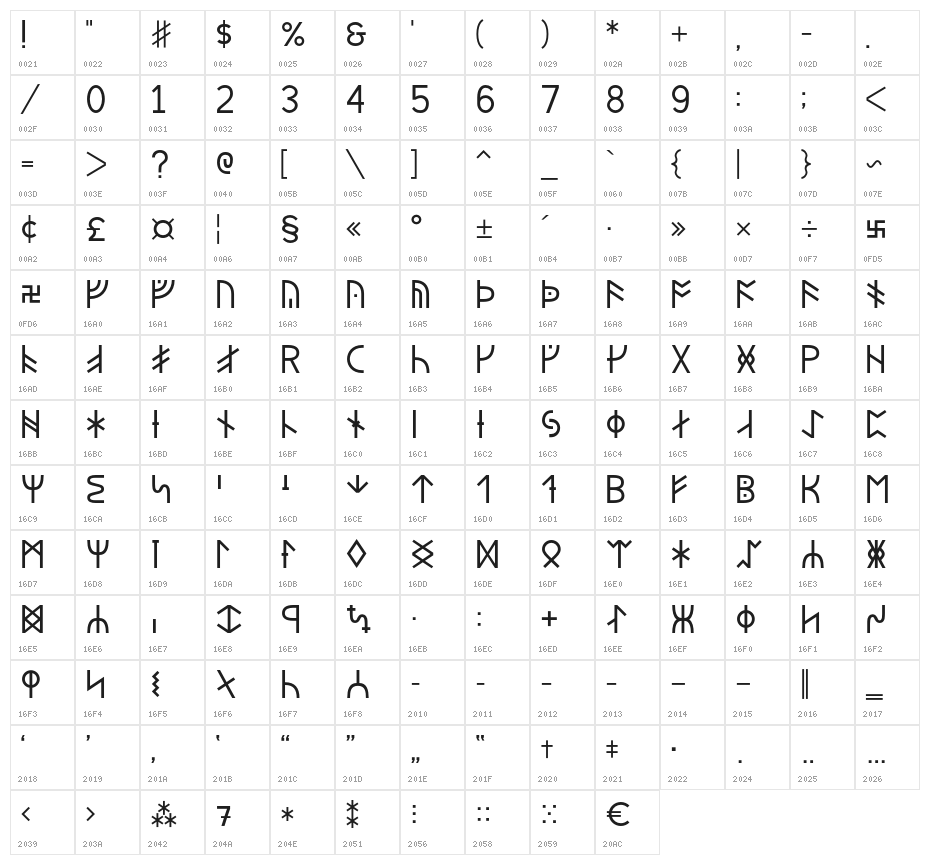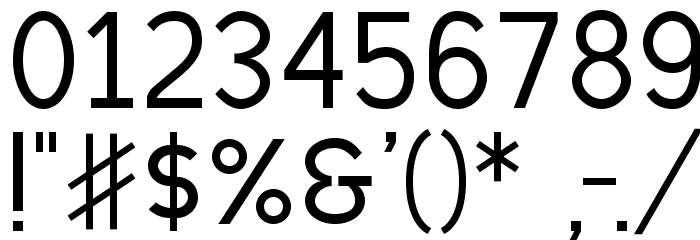
Beorc Gothic Regular Font
Beorc Gothic Regular Description
This font features a unique blend of traditional and modern elements, characterized by its clean lines and geometric shapes. The uppercase letters are bold and striking, while the lowercase letters maintain a consistent style that complements the overall aesthetic. The numerals are clear and easy to read, making them suitable for various applications. Special characters are designed with precision, adding to the font's versatility. The overall design is both functional and stylish, making it a great choice for a wide range of projects.